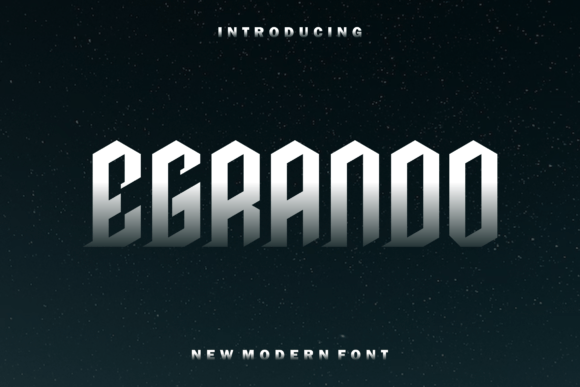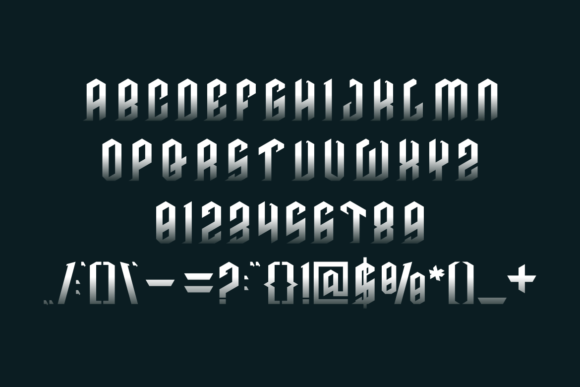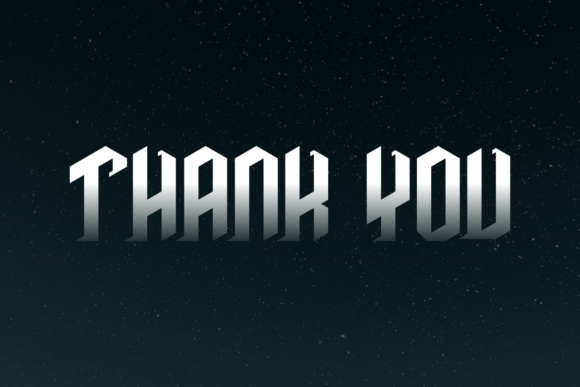
Egrando Font
EGRANDO FONT SPECIMEN
Egrando is a modern slab serif font with unique and solemn characters. This font is perfectly suited for a wide variety of projects, such as signature, stationery, logo, wedding, typography quotes, magazine or book cover, website header, clothing, branding, packaging design, and more.